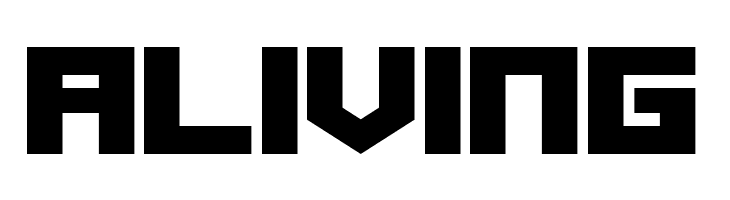
Bone Master Display - Personal Use Font
- Font: Bone Master Display - Personal Use
( Fonts by Levi Halmos )
A bold, geometric font with a modern, tech-inspired style.